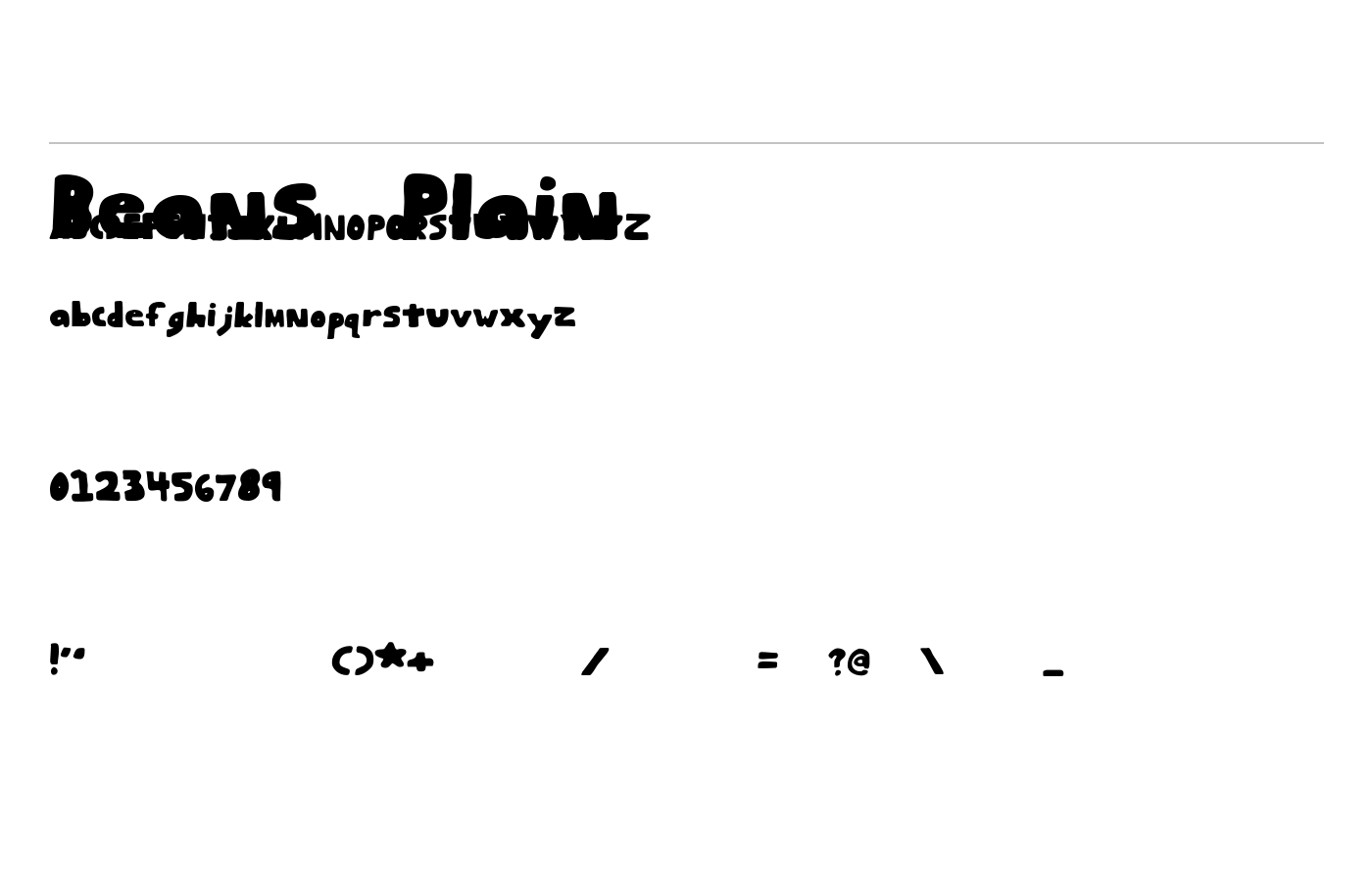
Beans Plain is a bold, playful sans serif font with a chunky, rounded style that conveys a fun and informal vibe. Its thick strokes and tight spacing make it ideal for eye-catching headlines, logos, and children's designs where a friendly and approachable look is desired. This font works best in creative and casual contexts that aim to engage viewers with a lively personality.
Beans Plain Font
About Beans Plain Font